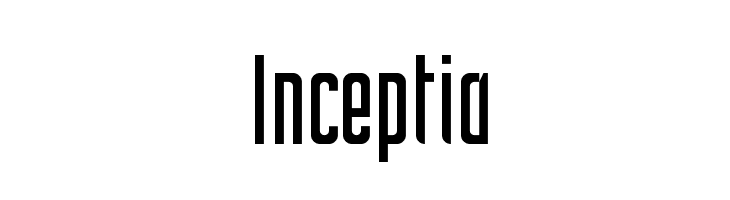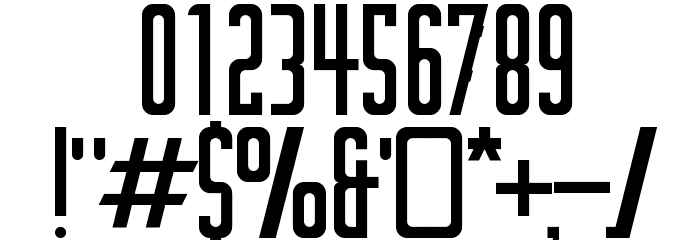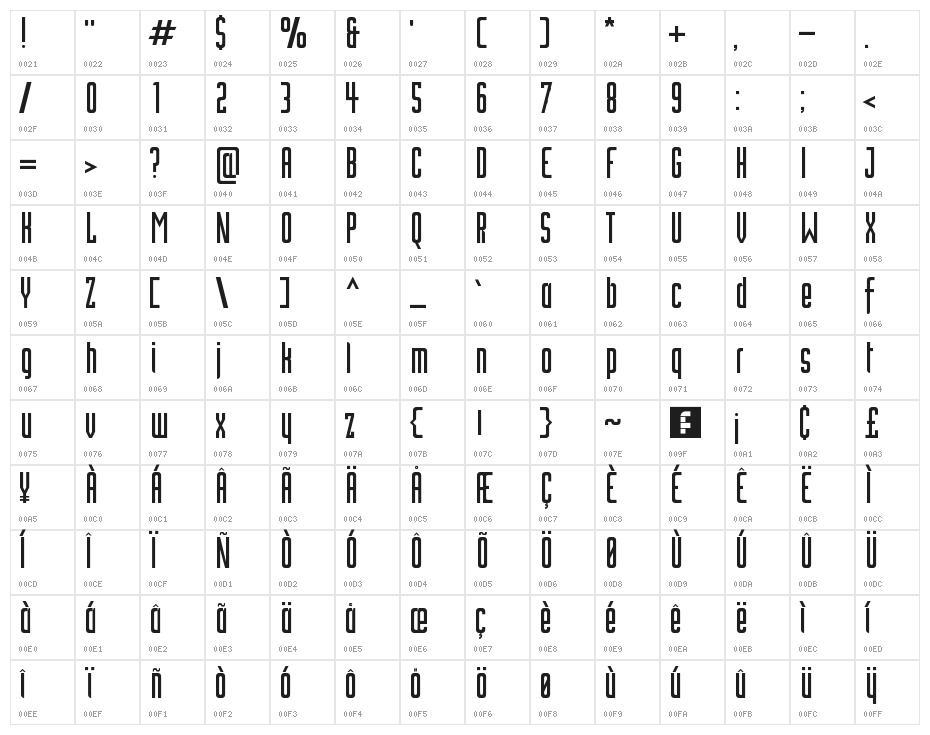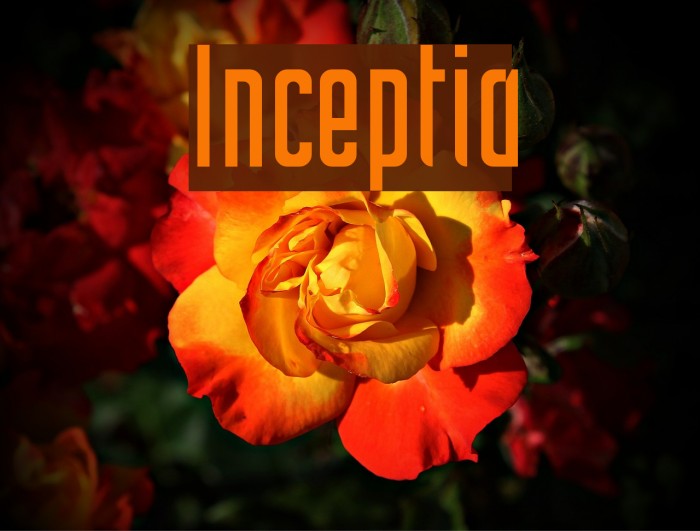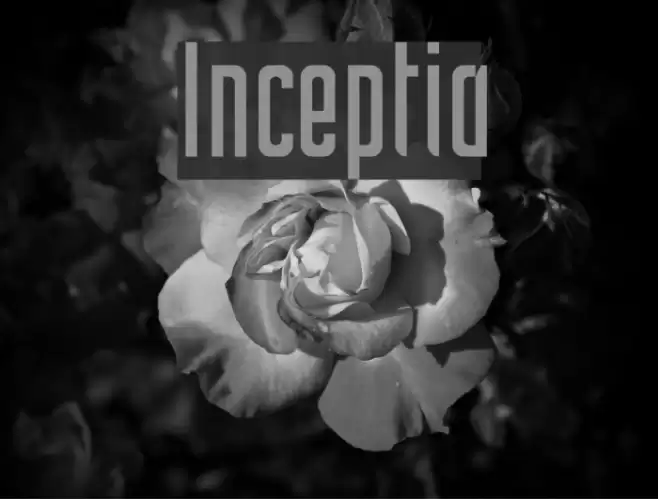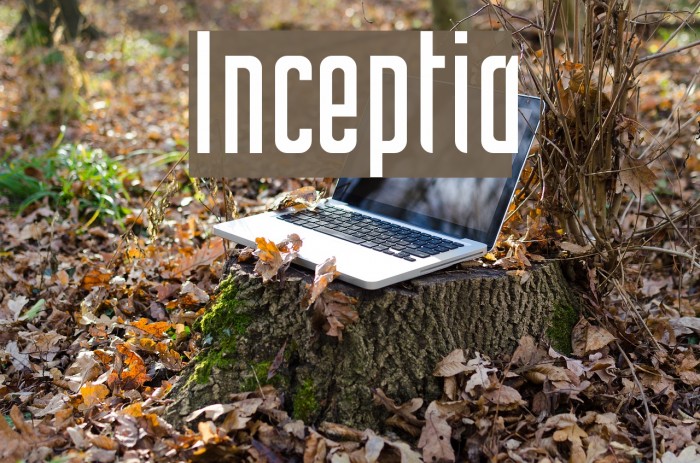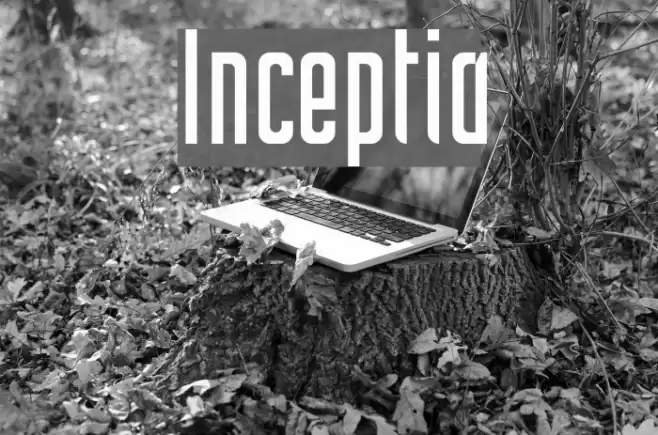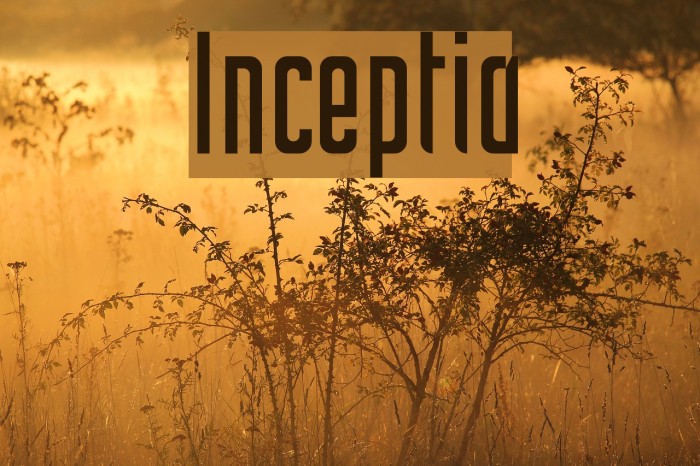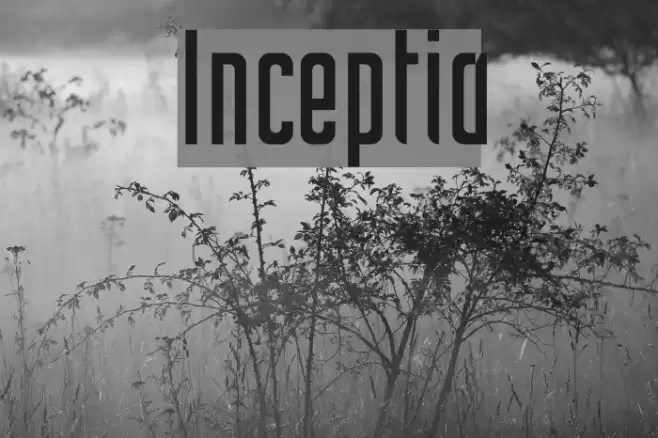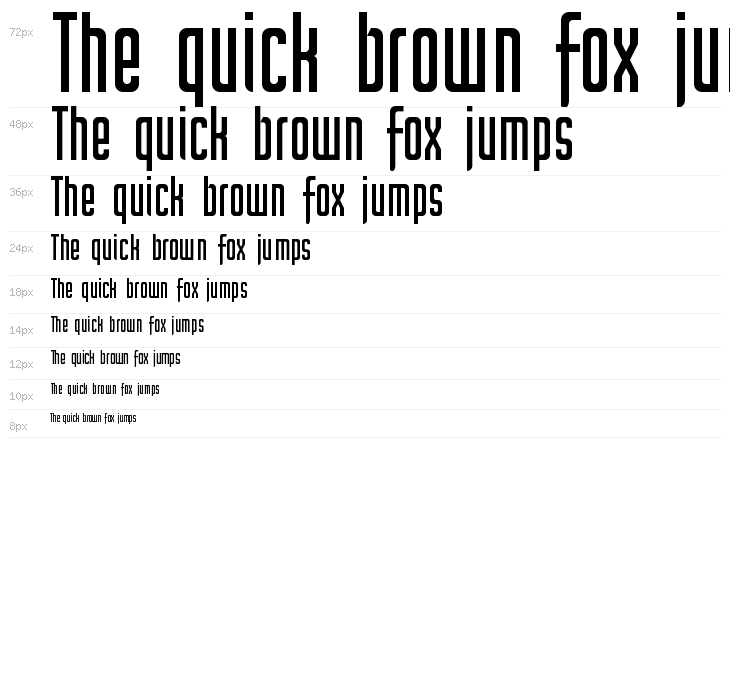
Inceptia Font
Inceptia Description
This font features a modern, geometric design with tall, narrow characters that convey a sleek and contemporary aesthetic. The uppercase and lowercase letters maintain a consistent height, contributing to a uniform appearance. The numerals are distinct and align well with the overall style, ensuring readability. Special characters are designed with the same geometric precision, enhancing the font's cohesive look. The clean lines and minimalistic approach make it suitable for a variety of design applications.
| Proposed Projects | Ideal for branding, advertising, and editorial design projects where a modern and clean look is desired. |